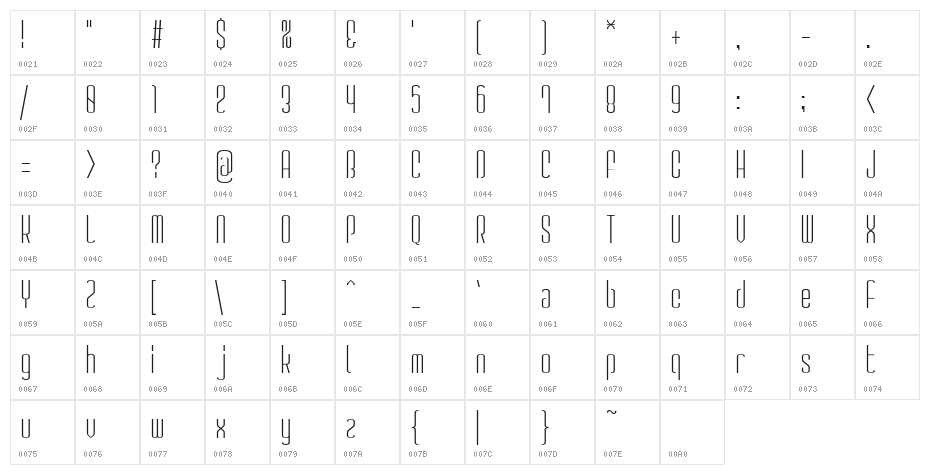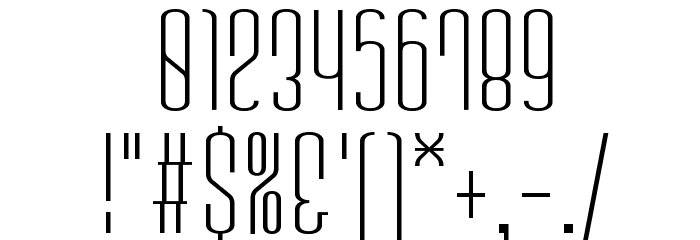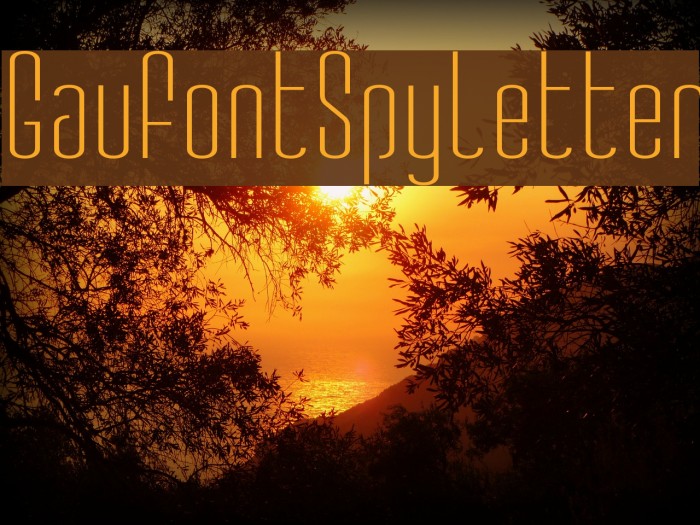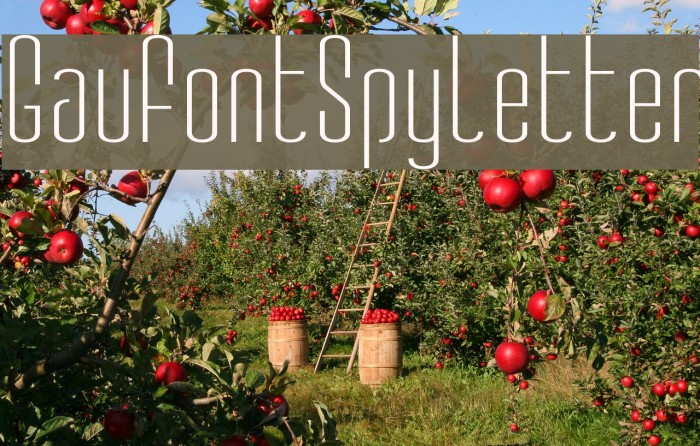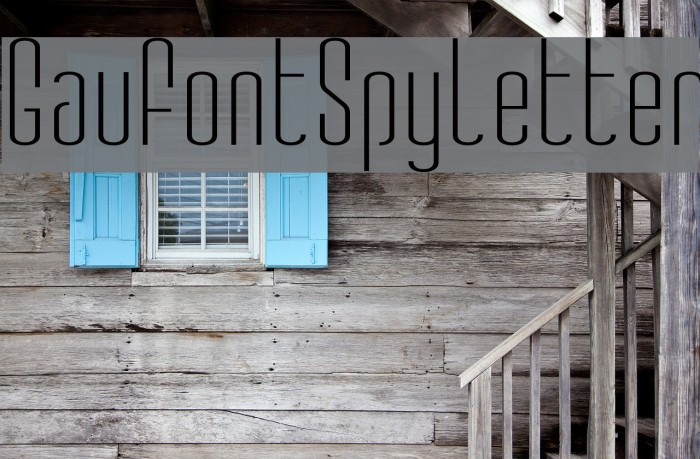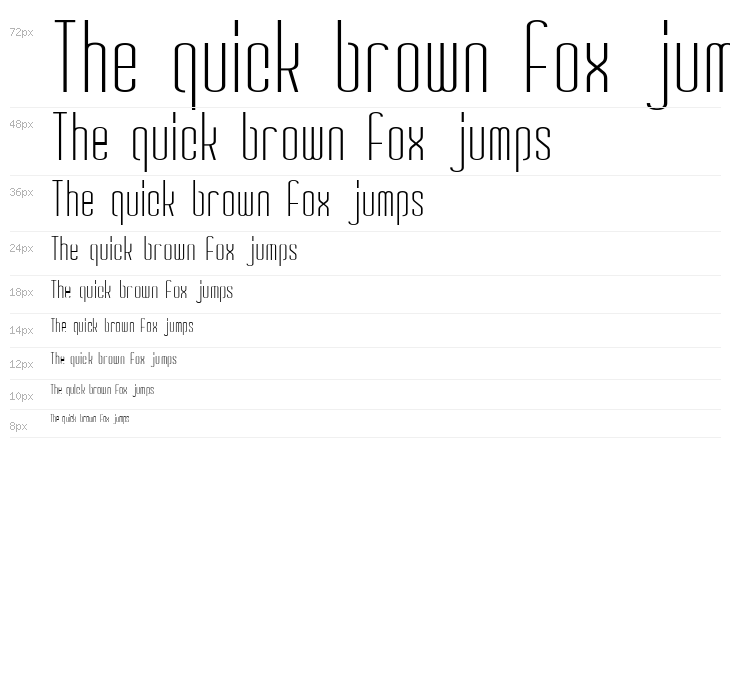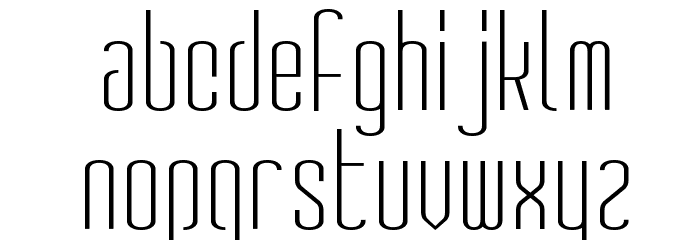
GauFontSpyLetter Font
GauFontSpyLetter Description
This font features a modern, elongated design with a sleek and sophisticated appearance. The characters are tall and narrow, with a consistent stroke width that gives it a clean and minimalistic look. The uppercase letters have a distinctive geometric style, while the lowercase letters maintain a similar aesthetic, ensuring uniformity across the typeface. The numerals are uniquely styled to match the overall design, and the special characters are crafted with the same attention to detail. This font's elegant and contemporary feel makes it suitable for a variety of design applications.
| Proposed Projects | Ideal for branding, editorial design, posters, and digital media where a modern and sophisticated look is desired. |